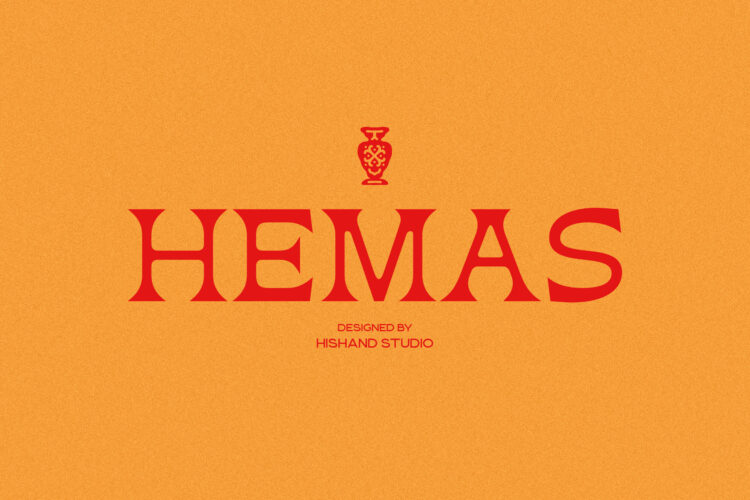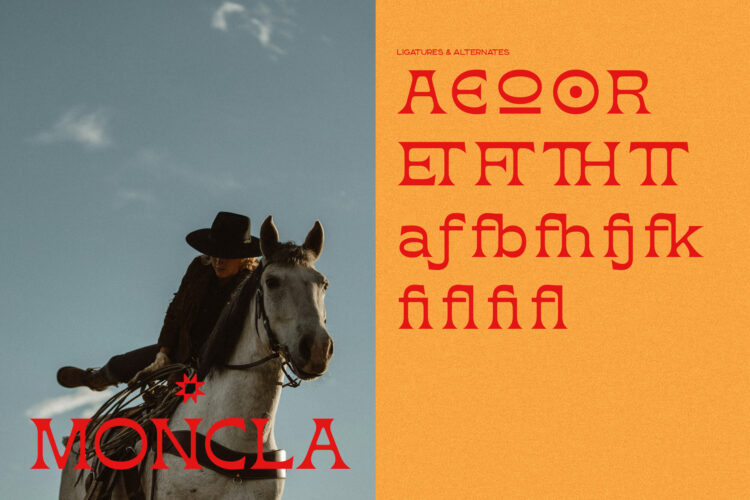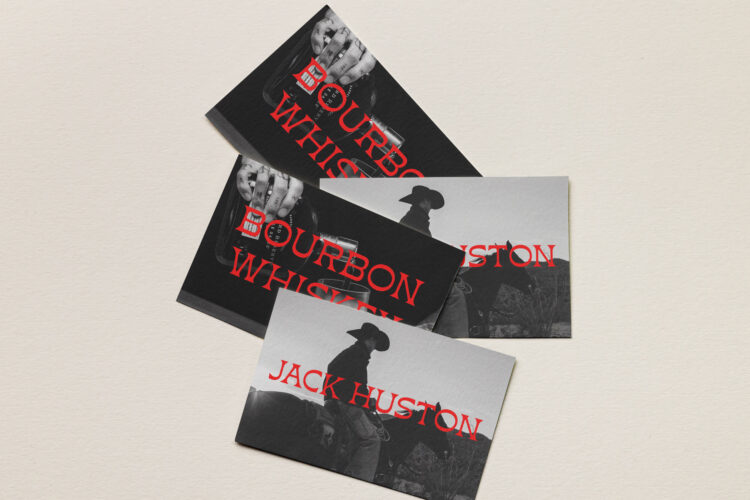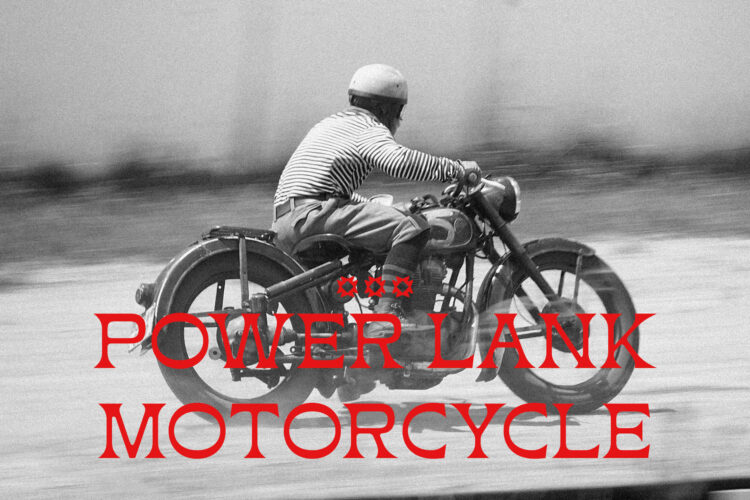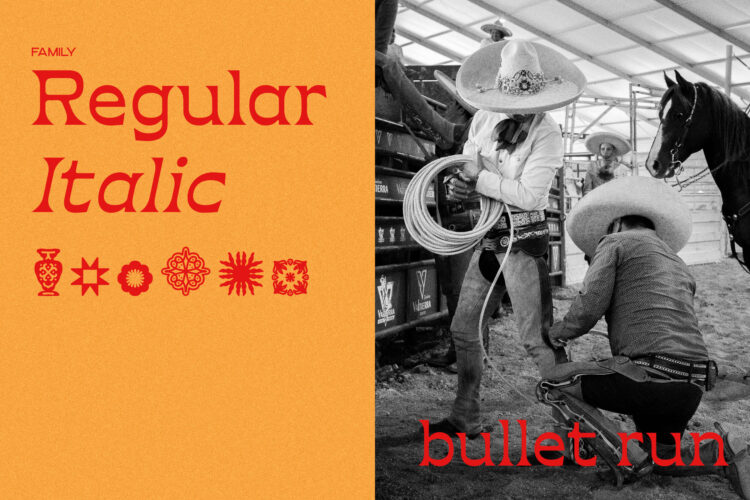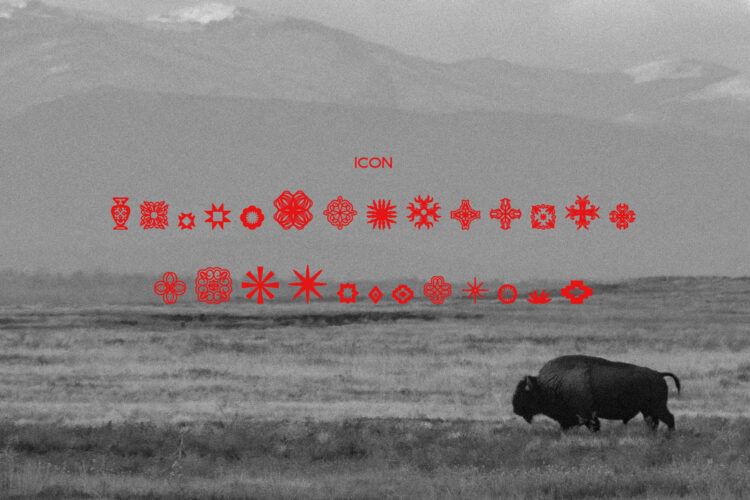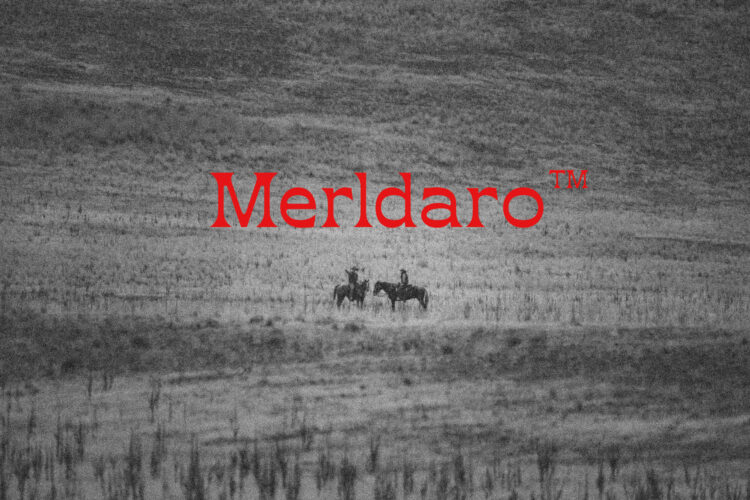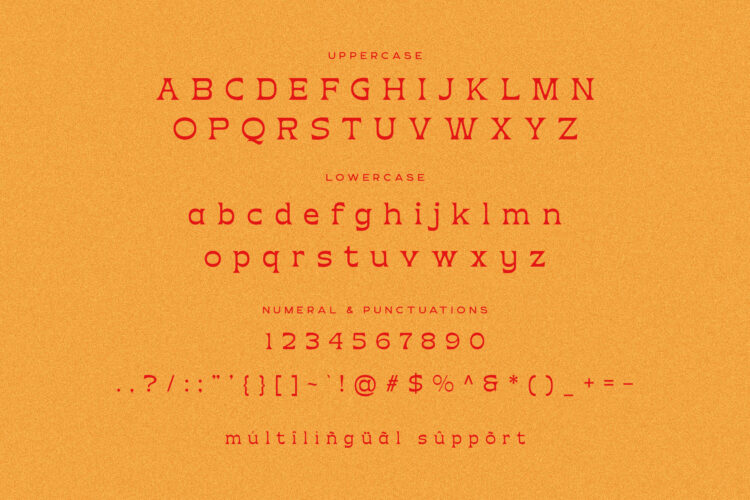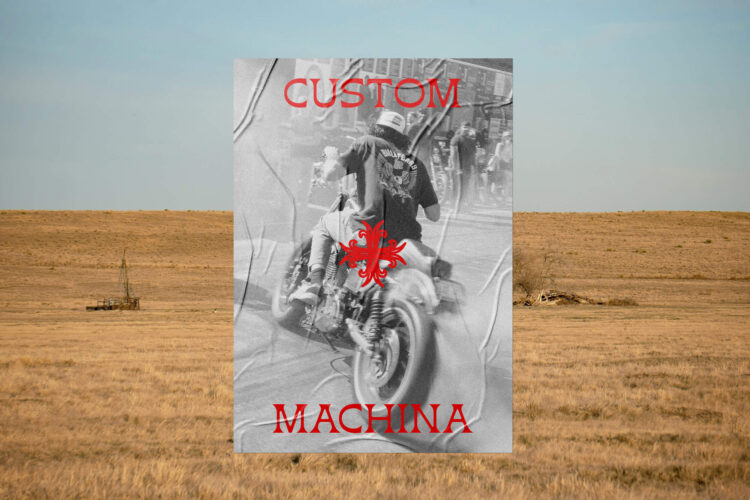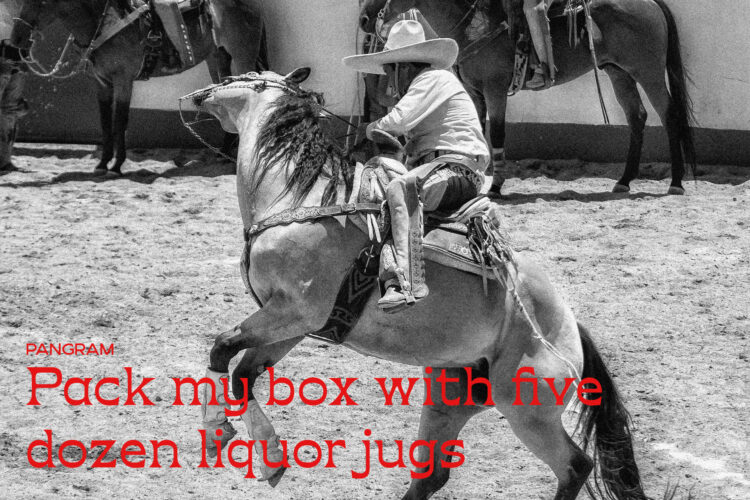
Hemas is a serif display typeface built to look aesthetic and effortlessly cool. Its letterforms carry a classic feel while staying distinctive enough to stand out in modern design work, striking a balance between structure and personality that keeps it from feeling generic or overdone. As a display face, Hemas Serif Display Font works well for logotypes, packaging, editorial headlines, and branding that wants a refined, high end look. The serifs bring structure and elegance, giving the typeface a versatile edge across a range of creative projects, from minimal, upscale layouts to bolder, more expressive design work. Its presence at large sizes makes it a strong fit anywhere a headline or wordmark needs to do the heavy lifting, holding attention without relying on extra decoration.
Hemas also holds up well across formats. It reads clearly on packaging and product labels, brings polish to editorial spreads and headlines, and gives brand identities a distinctive, recognizable anchor. Whether the goal is understated sophistication or something with more visual punch, the typeface adapts without losing its core character, making it a dependable choice across very different kinds of projects.
The family ships with 26 bundled icons, decorative marks that complement the typeface and can be used directly in your layouts. These icons extend the usability of the family beyond text alone, giving designers a ready set of visual accents that pair naturally with the letterforms, saving time when building out a full brand system or layout.
If you’re designing a label, a brand identity, or a statement headline, Hemas brings instant aesthetic character to your project. It’s a typeface made for designers who want something that feels considered and confident, without extra effort spent on styling or dressing it up. With Hemas Serif Display Font, the letterforms do the work, delivering a finished, high end feel right out of the box, ready to use straight away.
Complete with :
- ligatures
- alternates
- regular
- oblique
- icon
- kerning
- multilingual support